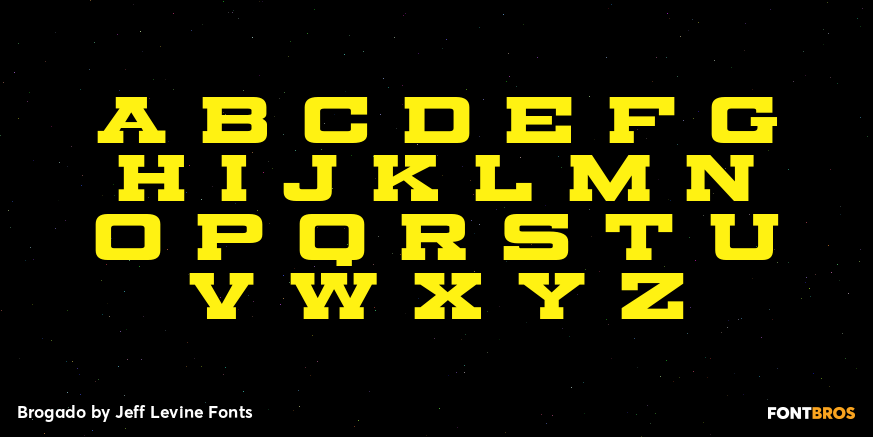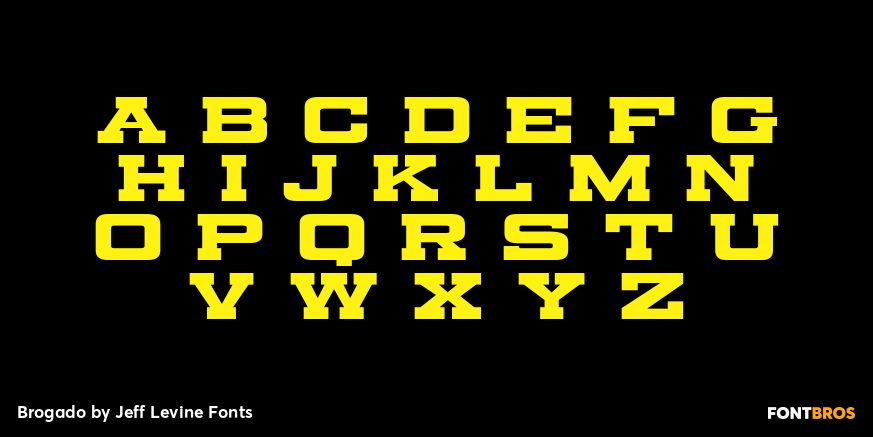
Brogado
Make room for Brogado JNL!
This bold, yet squat slab serif font takes command when set into headlines.
Although not thoroughly in the Western mold, Brogado JNL can still exude enough macho appeal to make its point strongly, yet clearly.